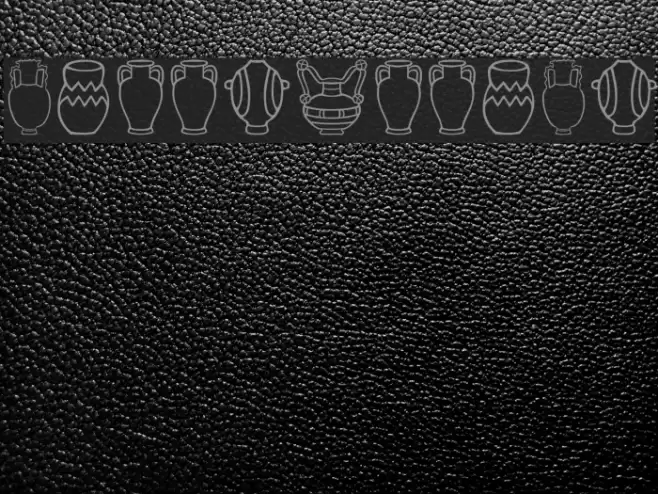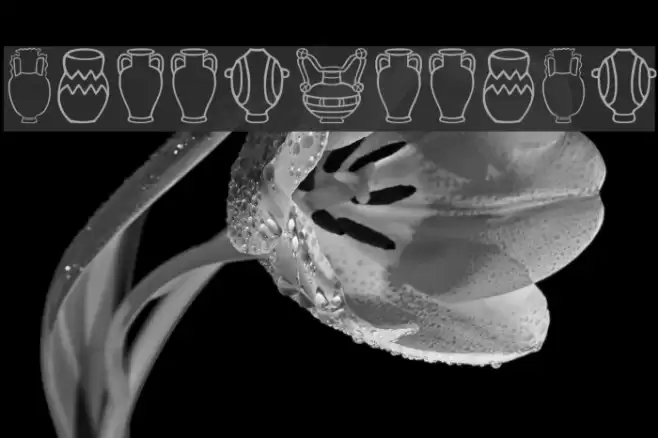
Pretty-Pottery Font
Pretty-Pottery Description
A decorative display font featuring unique illustrations of pottery and ancient vases in place of standard alphanumeric characters, with each glyph representing a different vessel or artifact in a hand-drawn, outlined style.
A display font composed of illustrated pottery and vase glyphs from Dingbats fonts.
- Proposed Projects: Art posters, museum branding, educational materials, themed invitations, creative packaging.
- Overall Style: Decorative, Artistic, Thematic
- Use Case: Logos, Headlines, Posters, Themed graphics